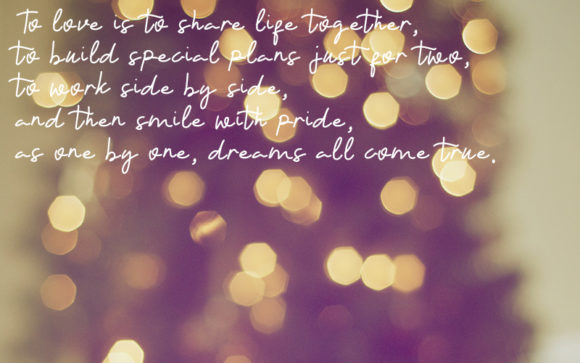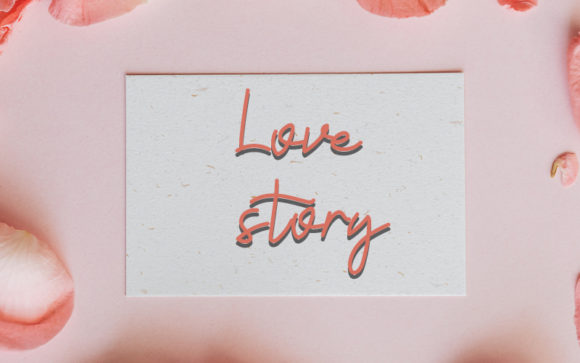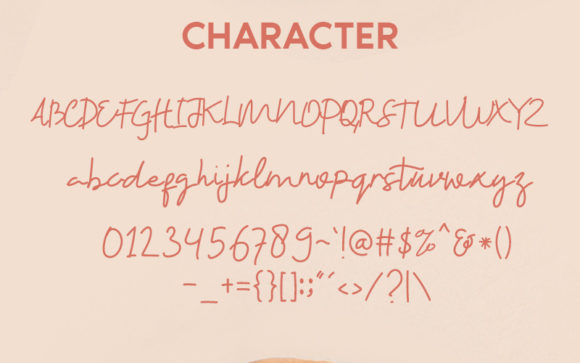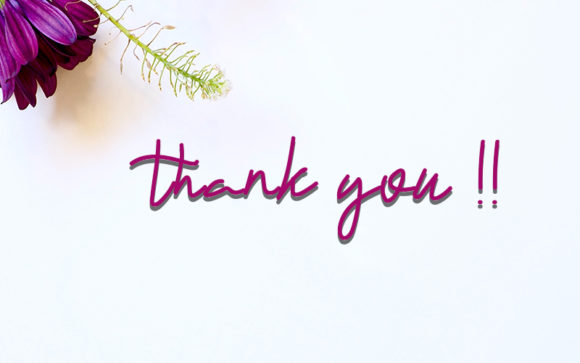
Hey Honey Font
About Hey Honey Font
Hey Honey is a cute and flowing handwritten font. With its neat and beautiful arrangement of letters, this typeface will look outstanding in both formal and non-formal designs.